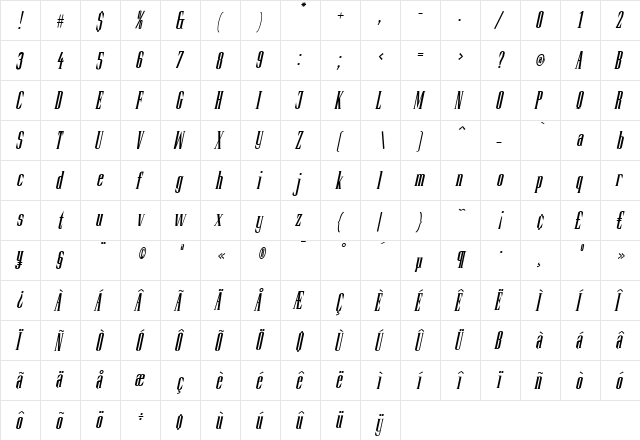
Slim Kim Bold Italic
Design Context for Slim Kim Bold Typeface
Slim Kim Bold is a composed and adaptable typeface that performs quietly and consistently across a wide range of design contexts. The dynamic lean of this cut emphasises speed and emphasis in any layout. The heavy weight commands attention and anchors typographic hierarchies.
Pro Tip: Use Slim Kim Bold for emphasis, pull quotes, and subheadings where its slanted energy can add rhythm to the layout.